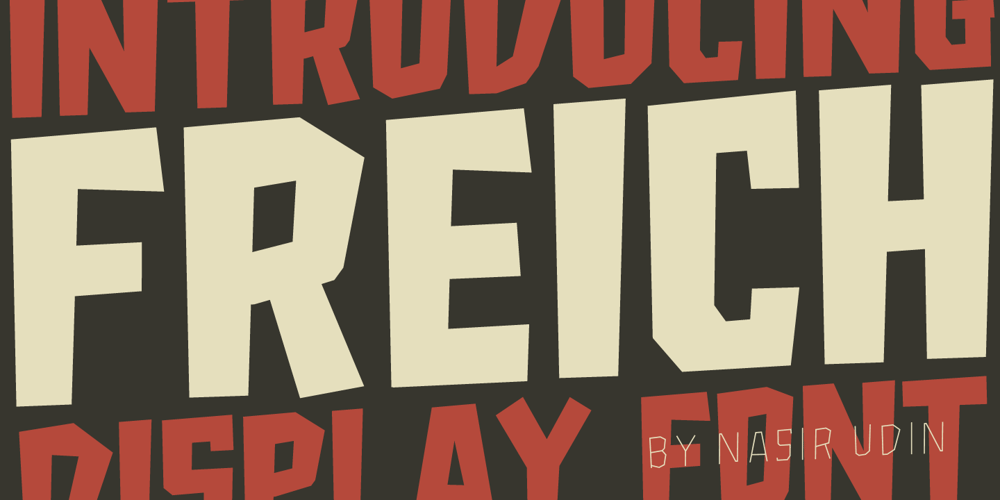
Freich Font Family was designed by Nasir Udin and published by Nasir Udin. Freich contains 3 styles and family package options. Freich is a mighty bold typeface with a vintage vibe and rebellious feeling. Perfect choice for posters with super hero or propaganda themes. Its sharp and strong letter forms will make any statements more powerful.